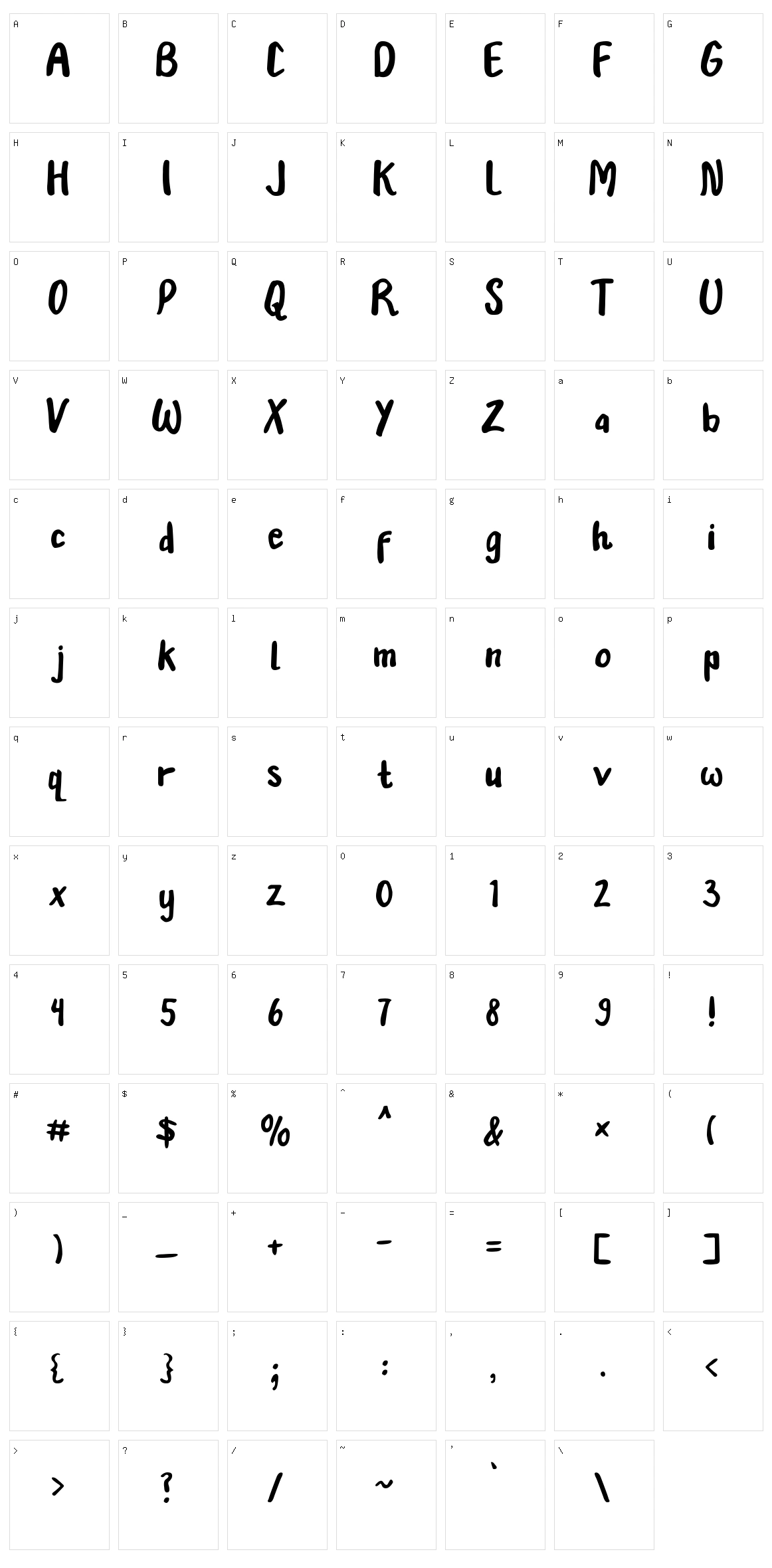
Cellavie is a Display Font that has Natural feels and friendly, it suits for any of your commercial projects logo, wedding designs, social media posts, advertisements, product packaging, product designs, label, photography, watermark, invitation, stationery and any projects that need childhood, adventure, playful & nature Taste.